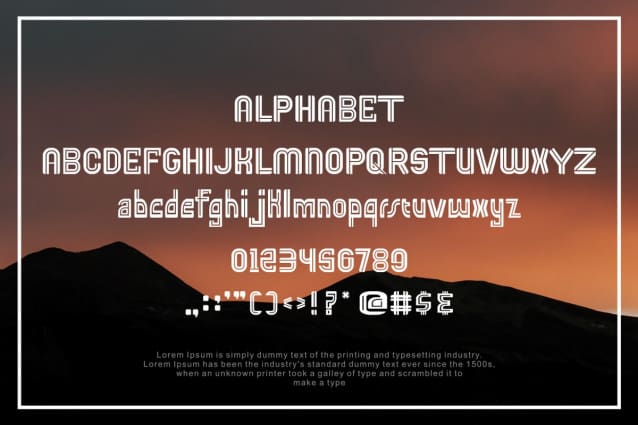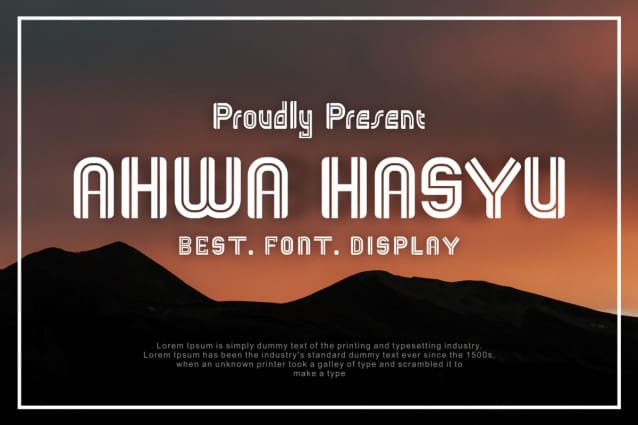
Ahwa Hasyu Font
Ahwa Hasyu Font – Modern Font is a bold and authentic display font. The font is suitable for any branding project like logo, t-shirt printing, esport, and many more. outstanding in a wide range of contexts.